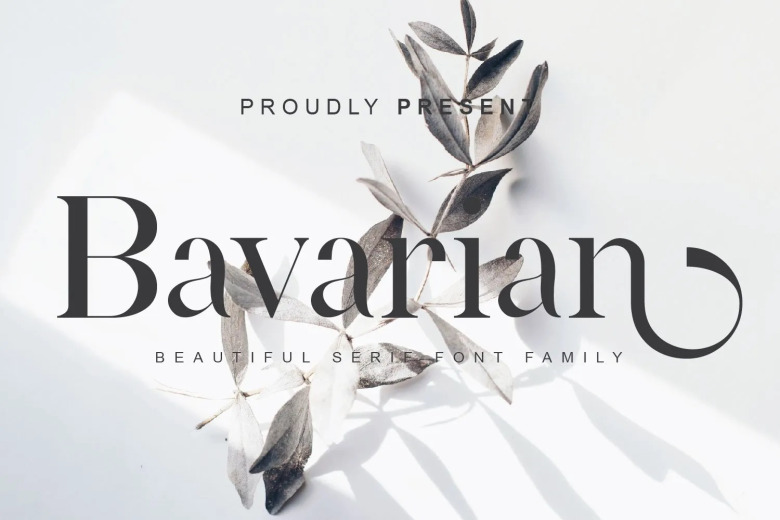
Bavarian Serif Font
Bavarian is a serif font with a beautiful appearance which makes this typeface is perfect for wedding invitations, business cards, newspapers, presentations, advertisements & many more. This typeface would be a good addition to your font library, it will definitely help bring all of your creative out!
Bavarian Modern Serif Font